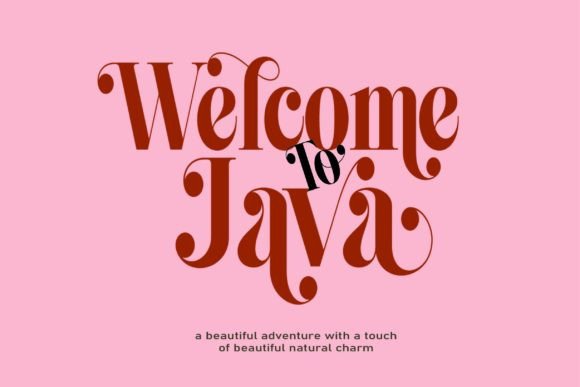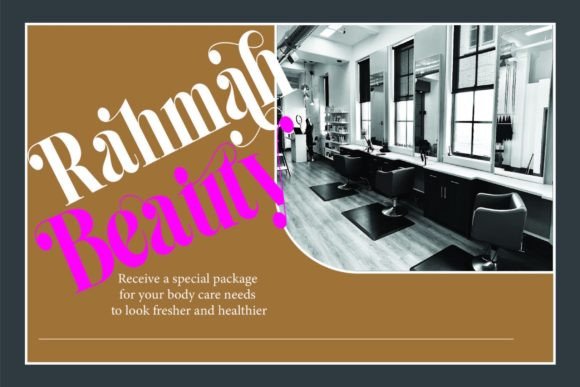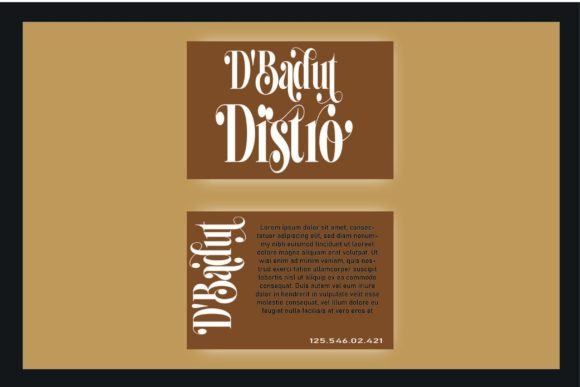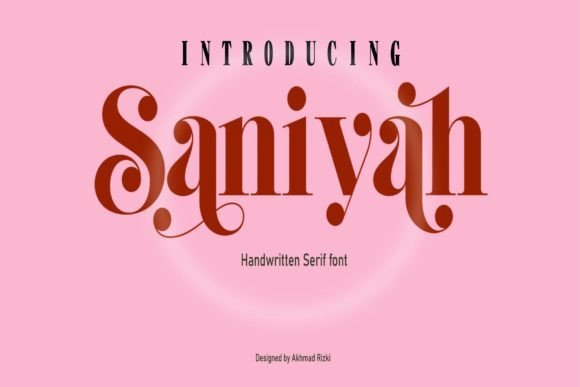
Introduction to Saniyah Font
Saniyah is a beautiful and modern serif font combined with a sweet touch.
It is using a touch of soft curves so that it is pleasing to the eye Saniyah is great for Wedding invitations, fashion magazines, logos, signatures, and watermark photography.